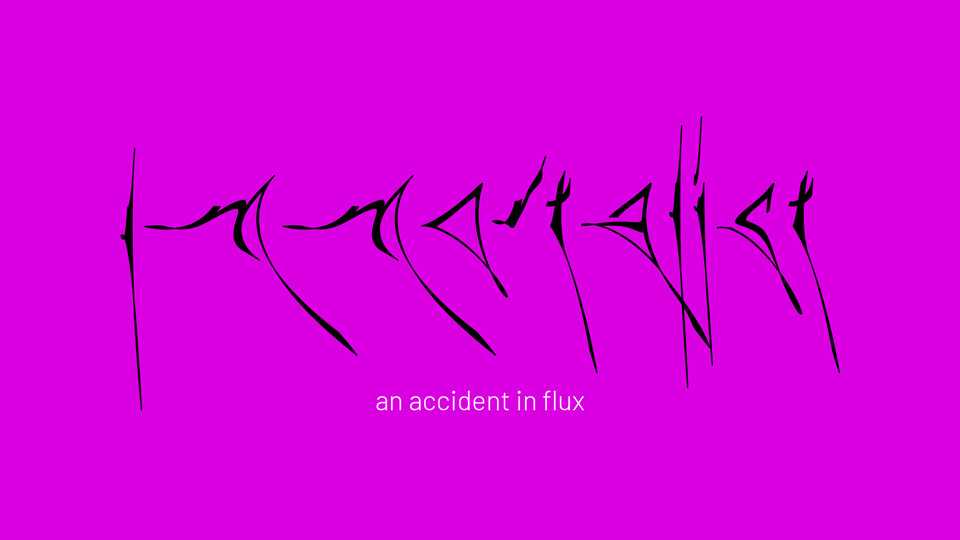
Download Immortalist font, a creative handwritten typeface with an impressive flow, an accident in flux. Immortalist is ideal for posters and modern artworks.